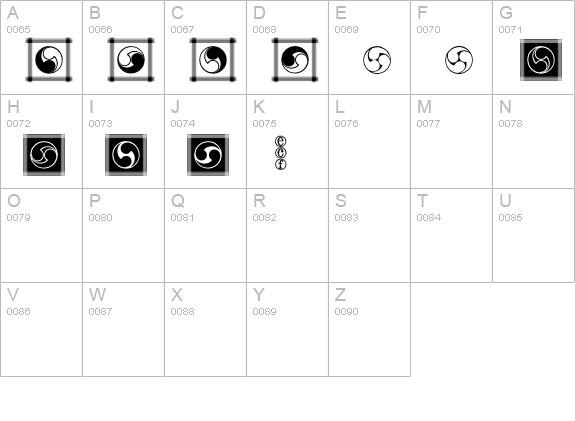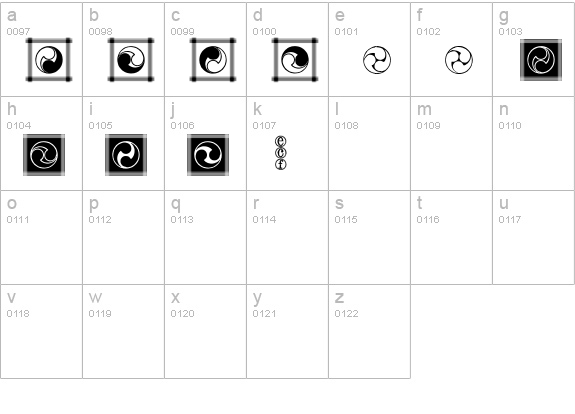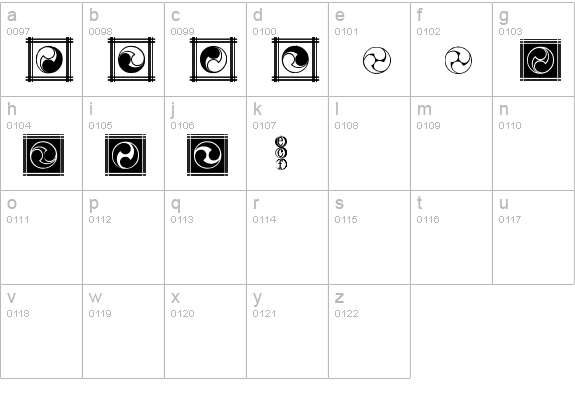
genji eval Font Details
Genji Eval Font is a versatile and sophisticated typeface that effortlessly blends modern aesthetics with traditional Japanese calligraphy influences. This elegant font is perfect for adding a touch of elegance and sophistication to your designs, whether for branding, editorial projects, or any creative endeavor. With its clean lines and graceful curves, Genji Eval Font exudes a sense of refinement and finesse. Best of all, Genji Eval Font is freely available to download at FontsMarket.com. This means you can easily access this high-quality font without any cost, making it a valuable addition to your font library. Don't miss out on the opportunity to elevate your designs with the timeless beauty of Genji Eval Font. Download it today and let its exquisite charm enhance your creative projects.